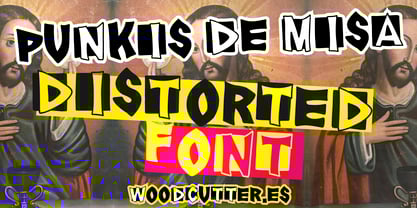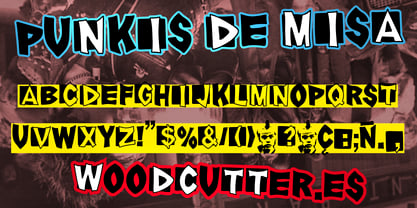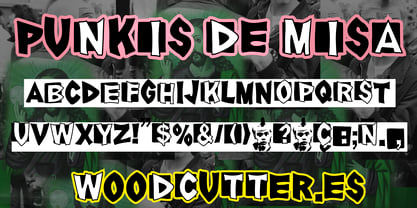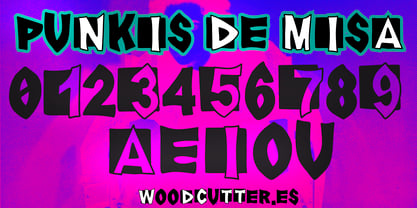
Punkis de Misa
by Woodcutter
The Punkis de Misa Font Family was designed by Jordi Manero and published by Woodcutter. Punkis de Misa contains 1 styles. More about this family
“Punkis de Misa” is an uppercase typeface that blends the rebellious spirit of punk with a subtle touch of elegance. The letters feature irregular distortions, some enclosed in rectangular boxes while others break free, creating a dynamic and chaotic composition. This design conveys a mix of disorder and sophistication, making it ideal for projects seeking to express a defiant attitude with a hint of refinement. Perfect for posters, album covers, or alternative designs, this font captures the essence of punk with a modern and stylized twist that stands out.
Designers: Jordi Manero
Foundry: Woodcutter